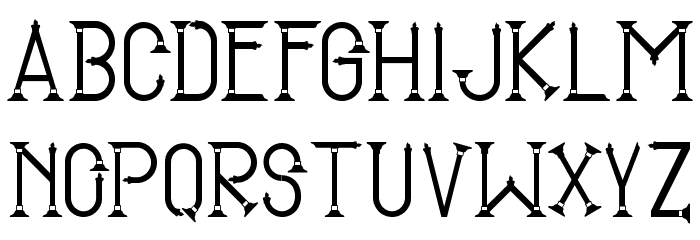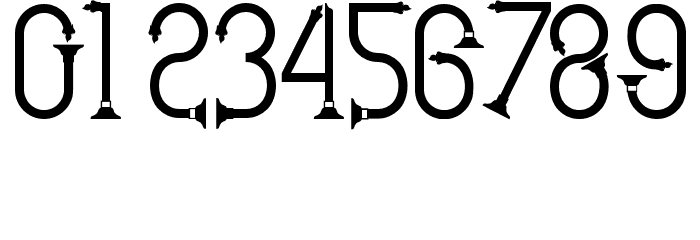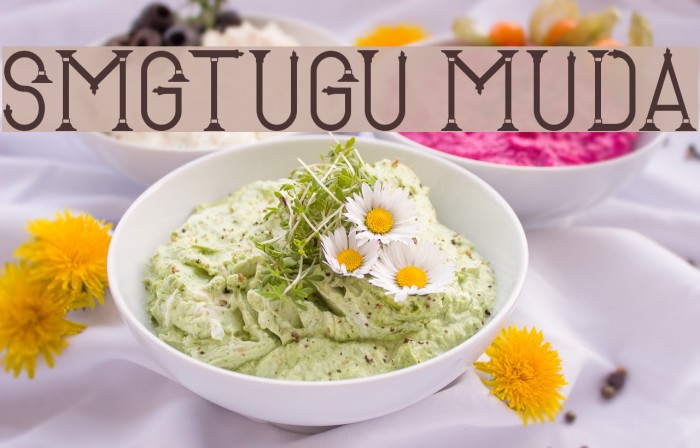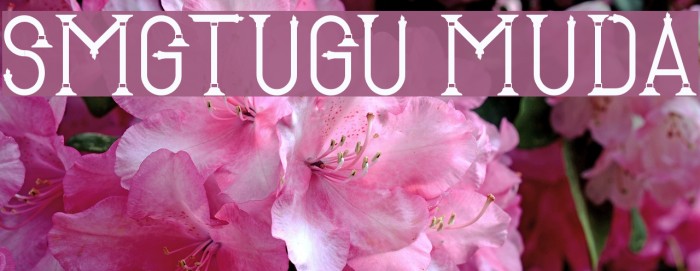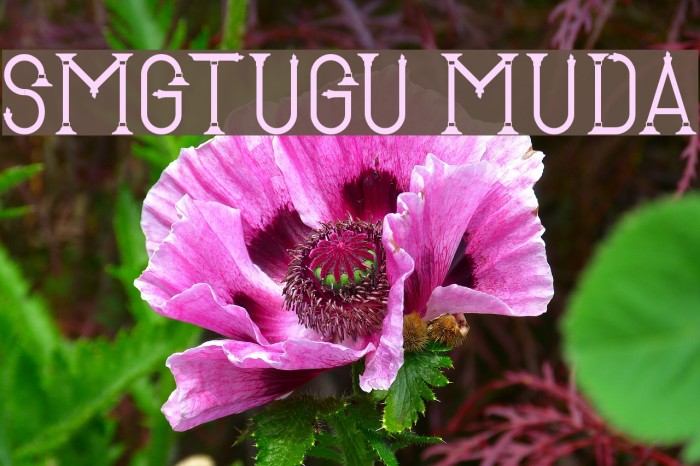
SMG_Tugu Muda Font
This font features a unique and decorative style with pointed serifs and a distinct geometric structure. The characters are bold and have a strong presence, making them suitable for attention-grabbing designs. The uppercase letters have a uniform height, while the lowercase letters maintain a consistent baseline, providing a balanced appearance. The numerals are equally stylized, with a consistent weight and width that matches the alphabet. The special characters are designed to complement the overall aesthetic, ensuring a cohesive look across different text elements. The font's design is reminiscent of vintage signage, with a modern twist that makes it versatile for various applications.
A decorative font with pointed serifs and geometric structure, ideal for bold designs.
- Proposed Projects: This font is perfect for branding projects, poster designs, and any creative work that requires a distinctive and eye-catching typeface.
- Overall Style: Vintage